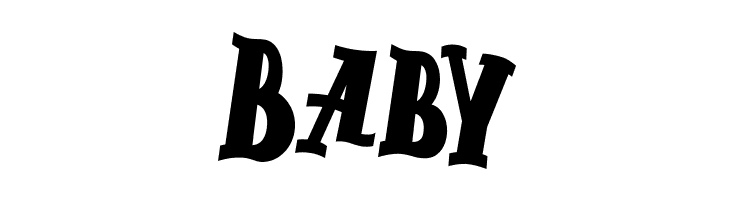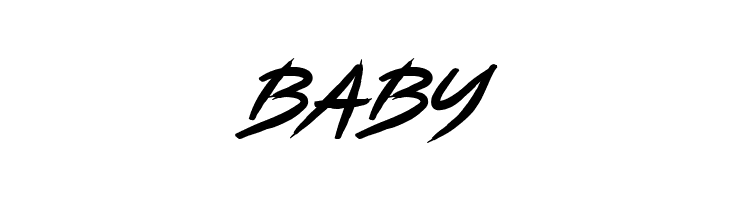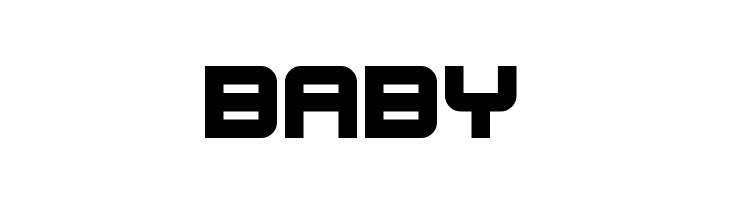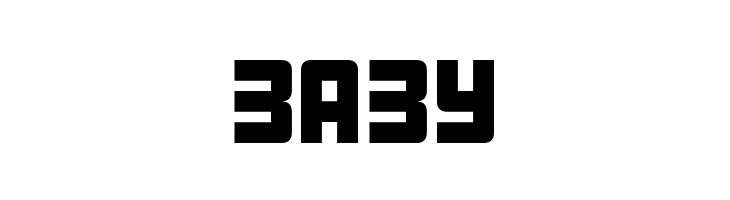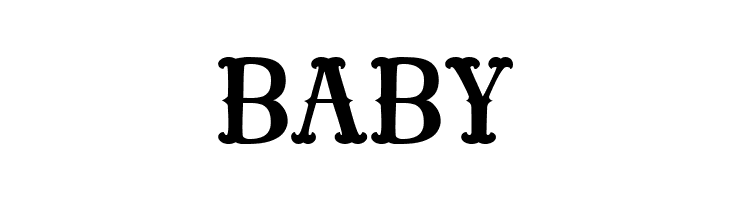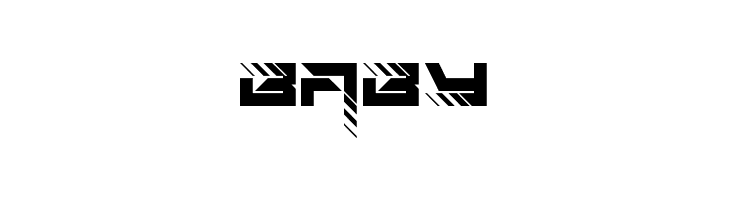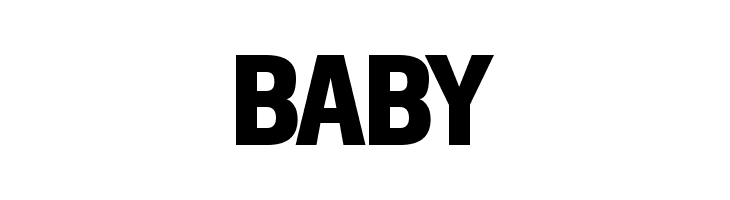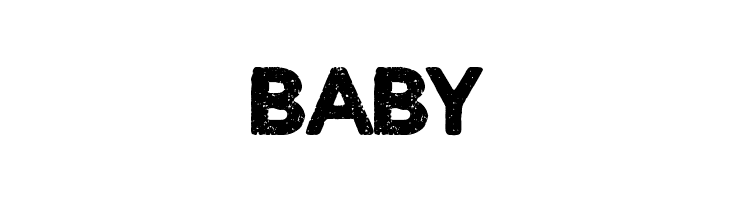
A playful, bold handwritten font with a whimsical touch.
A graceful script font with flowing, cursive strokes and elegant loops.
A playful, rounded font with smooth curves and a friendly appearance.
A dynamic and fluid script font with smooth, flowing lines and moderate contrast.
A dynamic and flowing script font with elegant cursive letterforms.
A playful and elegant handwritten script font with smooth, flowing lines.
A dynamic, cursive script font with fluid, expressive strokes.
A playful, bold, and rounded font with a whimsical style.
A bold, expressive script font with flowing, cursive characters.
A bold, geometric display typeface with blocky, high-contrast letterforms.
A bold, playful font with rounded edges and a hand-drawn feel.
A dynamic, brush-style handwritten font with expressive strokes.
A fluid and elegant handwritten script with smooth, connected strokes.
A graceful and elegant script font with flowing, cursive characters.
An elegant, italic script font with flowing, cursive characters.
A bold, cursive script font with dynamic, flowing strokes.
A bold, playful font with flowing, decorative elements.
A bold, dynamic script font with flowing, connected letterforms.
A bold, modern font with a geometric and futuristic design.
A bold, italicized font with a modern, dynamic style.
A modern, italic font with a futuristic and dynamic design.
A futuristic hollow font with a geometric and modern style.
A modern, geometric font with clean lines and rounded edges.
A bold, cursive script font with dynamic and fluid strokes.
A dynamic, slanted script font with a flowing, cursive style.
A lively, cursive font with dynamic strokes and elegant curves.
A playful, hand-drawn font with rounded, bold characters and a friendly vibe.
A pixelated, monospaced font with a retro digital aesthetic.
A modern, clean sans-serif font with geometric influences and excellent legibility.
A bold, modern typeface with clean lines and strong presence.
A bold, italicized typeface with a modern and dynamic appearance.
A bold, modern font with thick, uniform strokes.